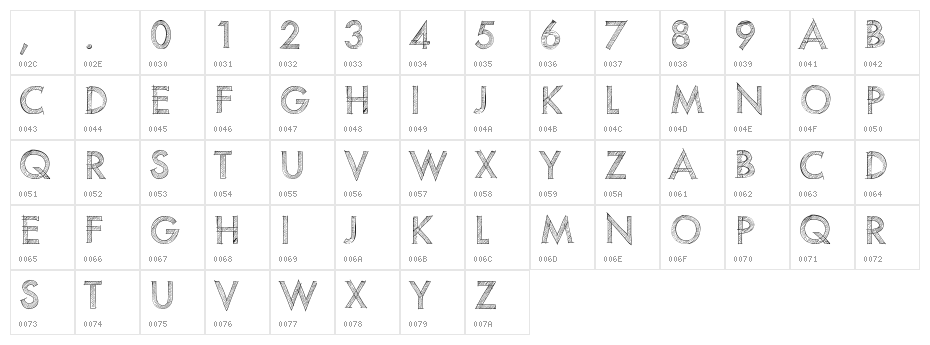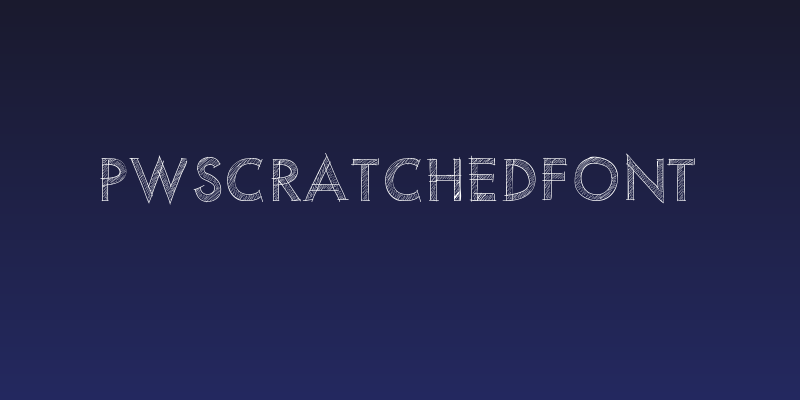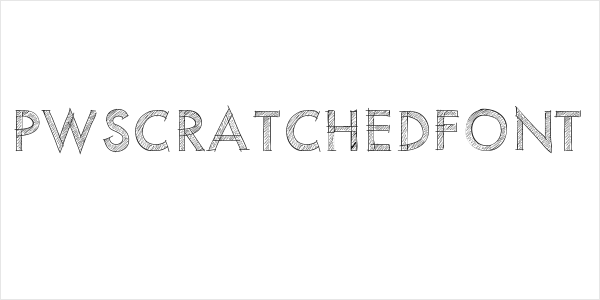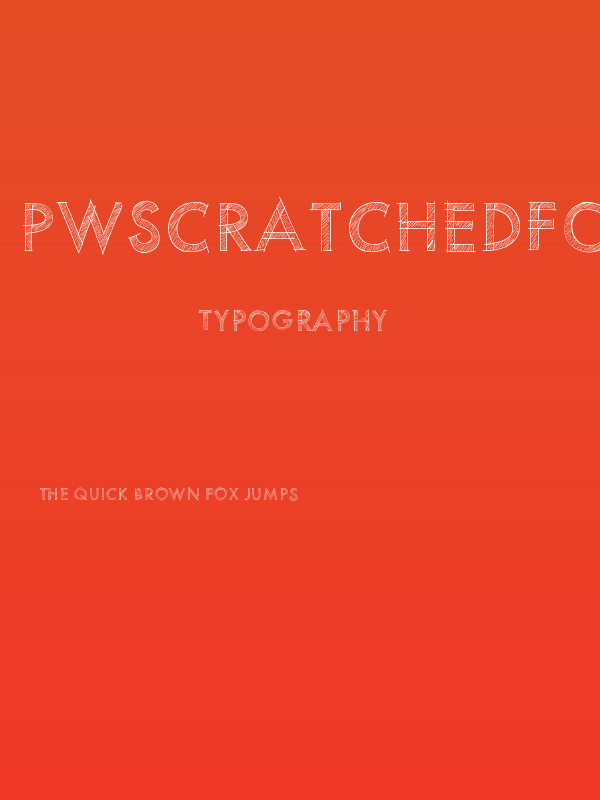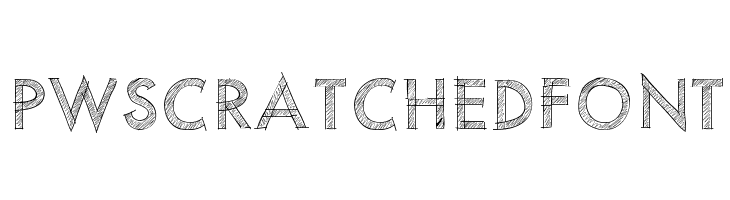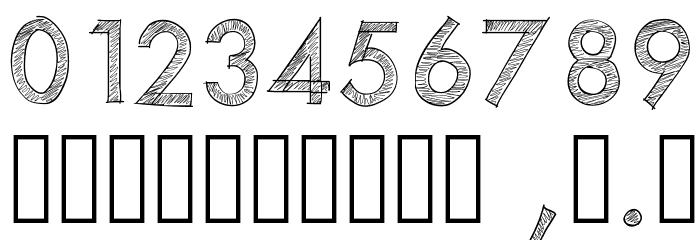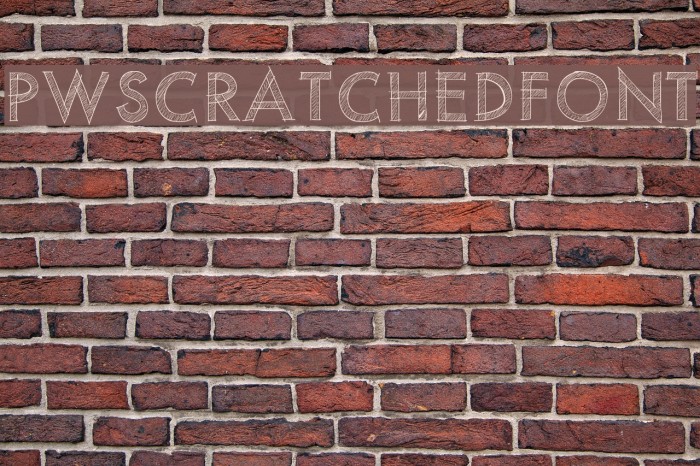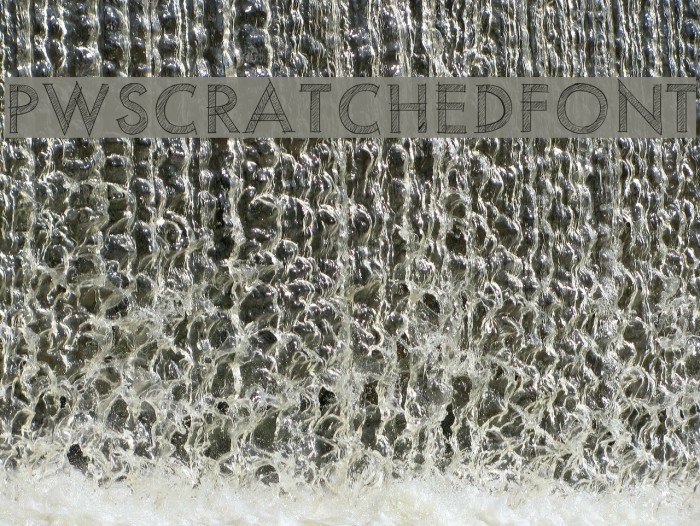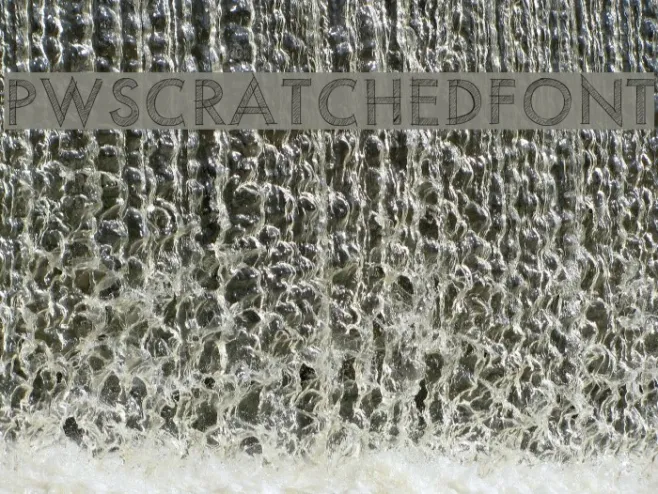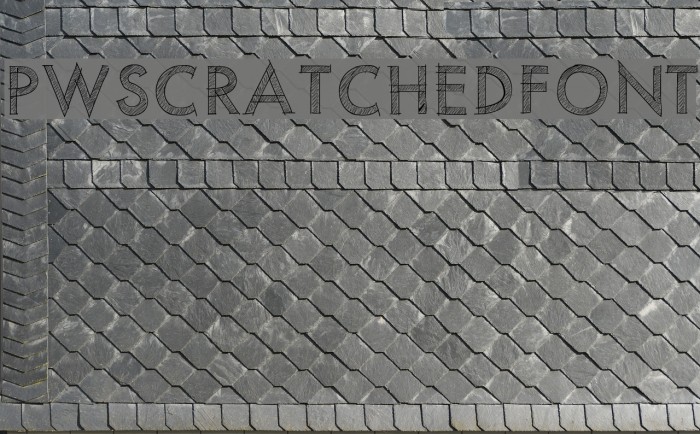
PWScratchedfont Font
PWScratchedfont Description
This font features a unique, hand-drawn style with a scratched texture that gives it a distinct, artistic appearance. Each character is outlined with a consistent width, filled with diagonal lines that create a textured effect. The uppercase and lowercase letters maintain a uniform height, contributing to a cohesive look. The numerals and special characters follow the same design principles, ensuring visual harmony across all elements. This font's playful yet structured design makes it suitable for creative projects where a touch of individuality is desired.
| Overall Style | Artistic, Hand-drawn |
| Use Case | Headlines, Posters, Creative projects |
| Proposed Projects | Ideal for artistic projects, posters, branding, and any design work that requires a creative and unique typeface. |